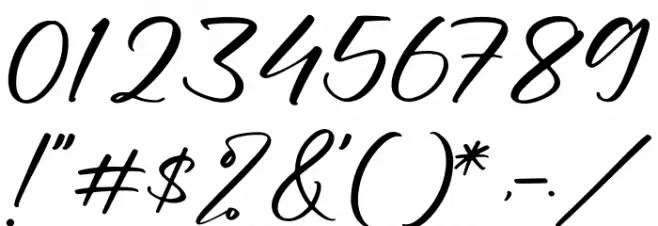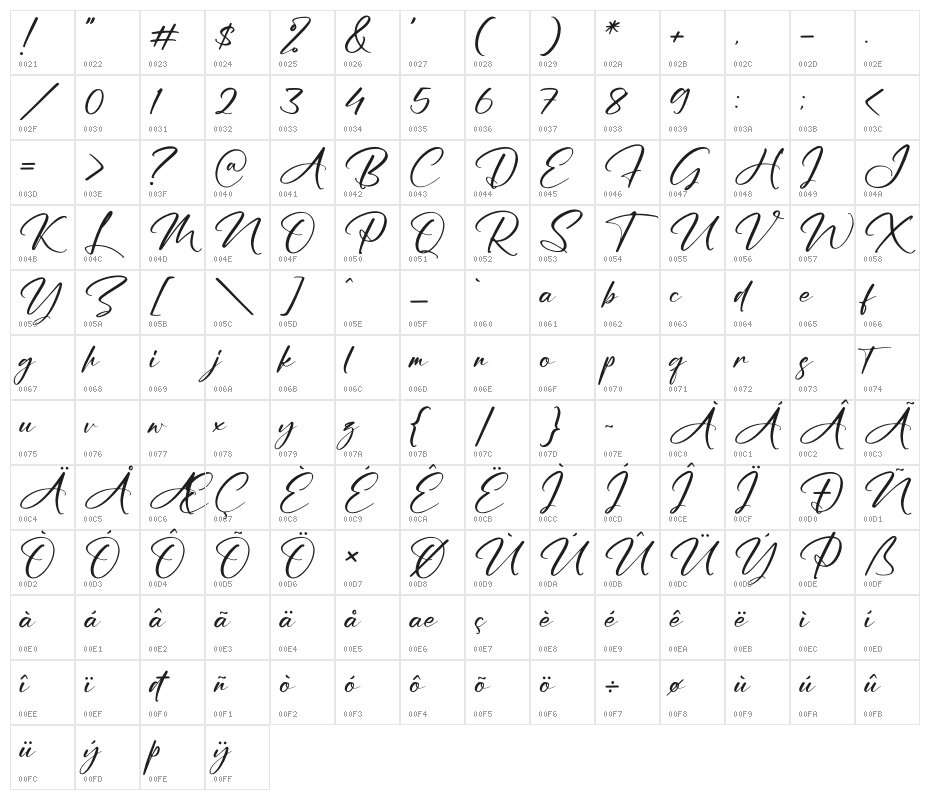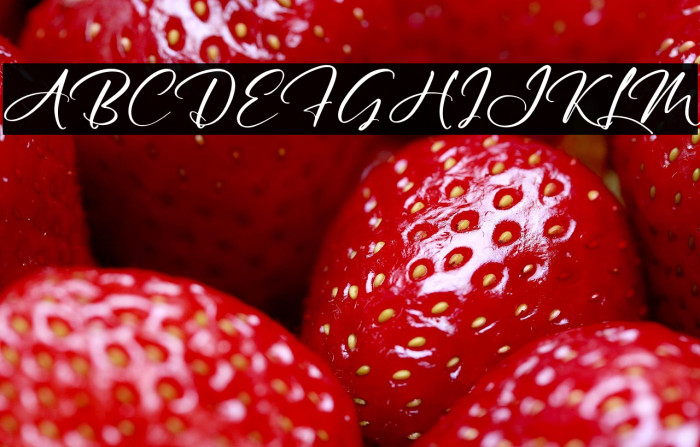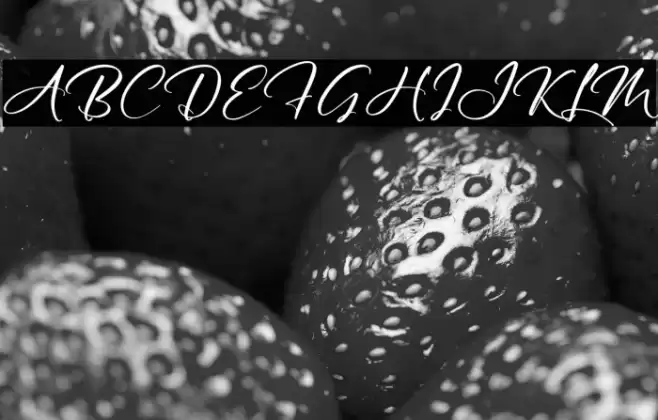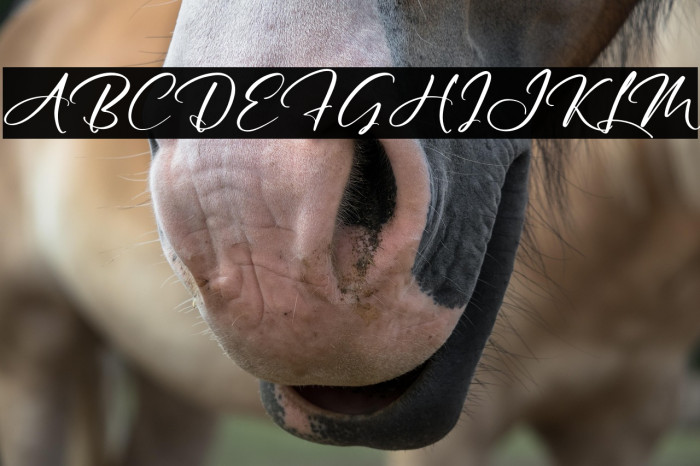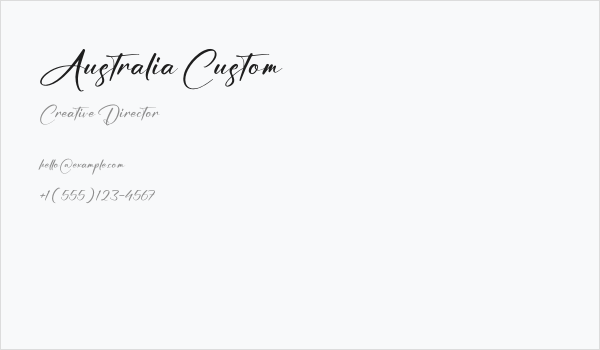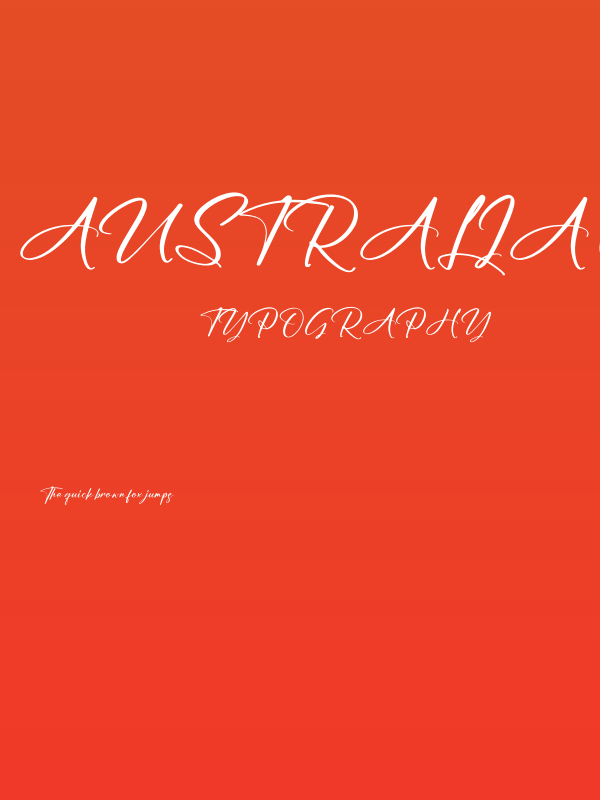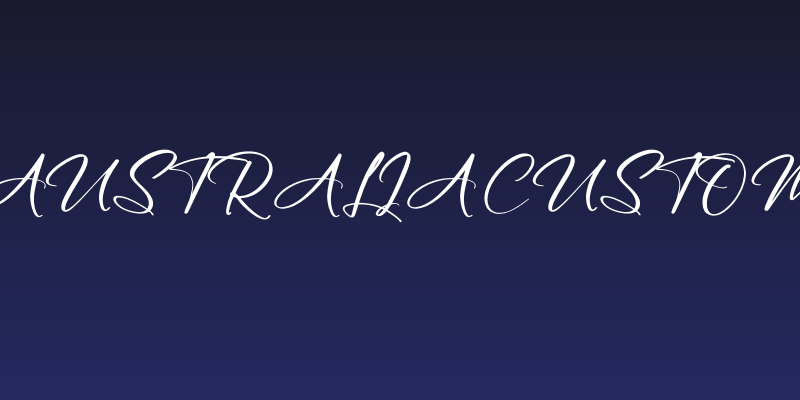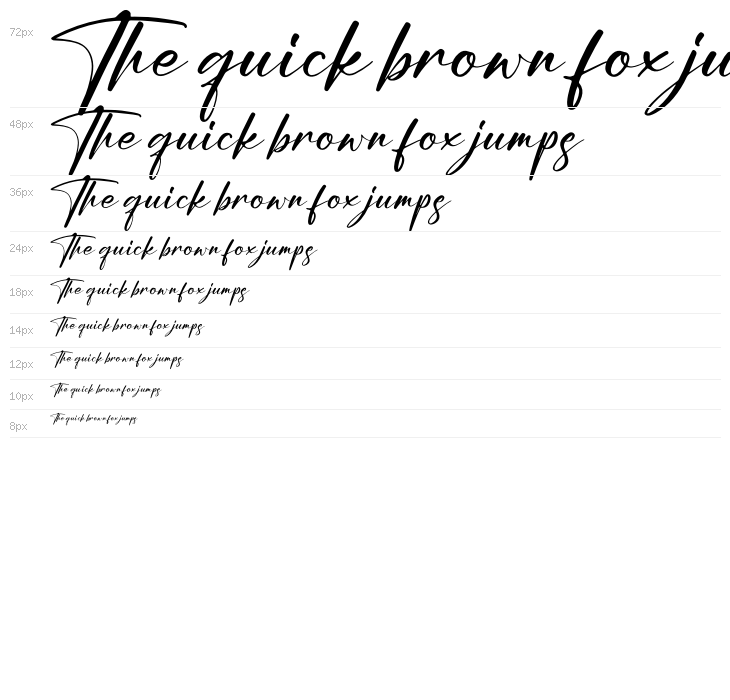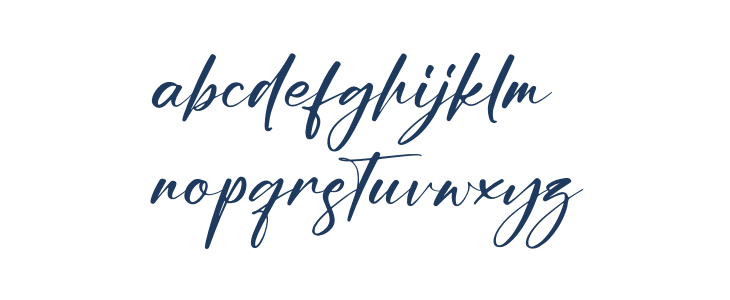
Australia Custom Font
Australia Custom Description
This elegant script font features fluid, cursive strokes that create a sense of movement and grace. The uppercase letters are characterized by sweeping curves and delicate loops, while the lowercase letters maintain a consistent flow with slightly exaggerated ascenders and descenders. The numerals are stylishly integrated into the design, complementing the overall aesthetic. Special characters are thoughtfully crafted to maintain the font's cohesive look. This font is perfect for projects that require a touch of sophistication and elegance.
| Use Case | Logos, Invitations, Decorative Text |
| Proposed Projects | Ideal for wedding invitations, elegant branding, personal stationery, and decorative signage. |